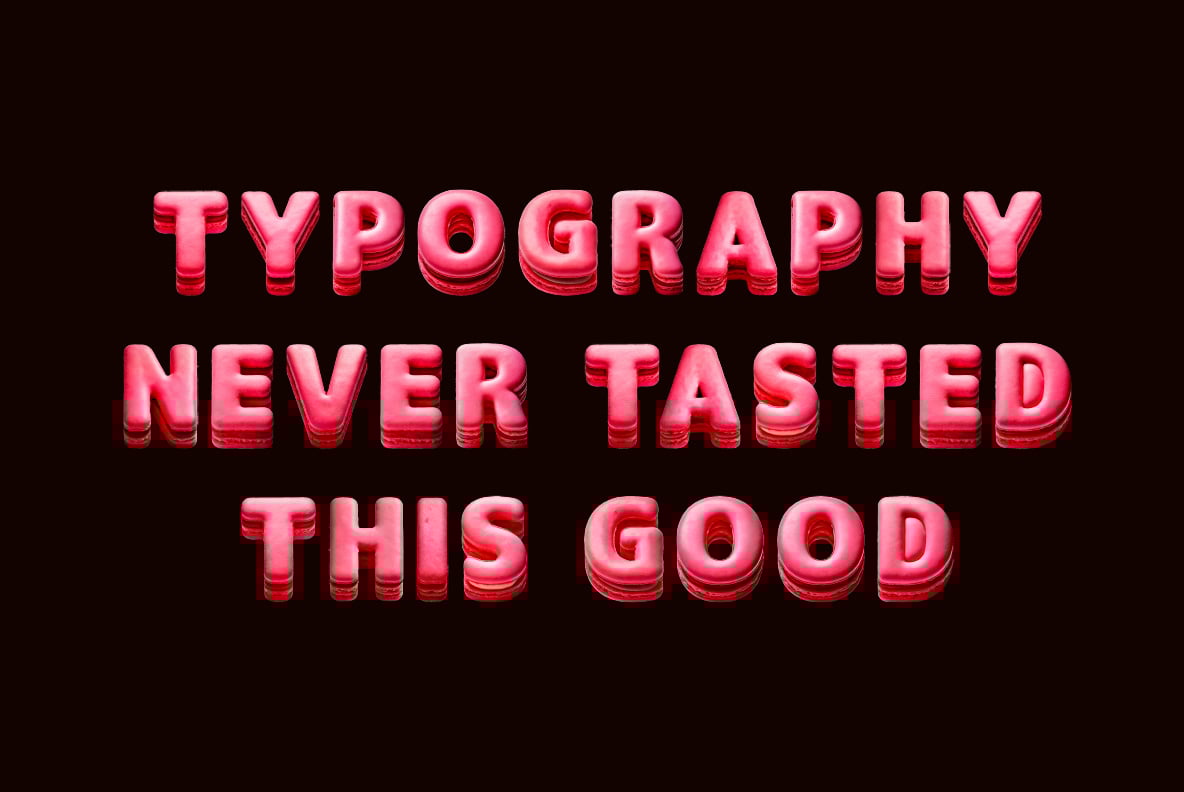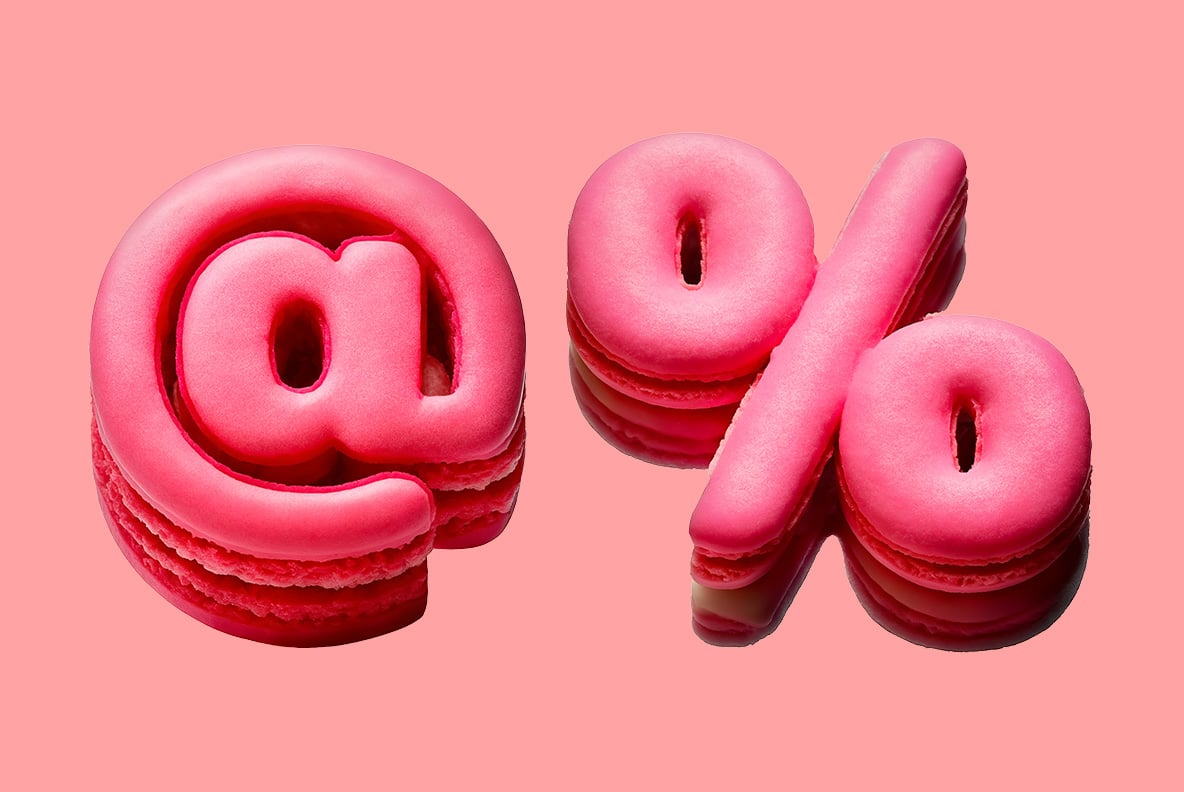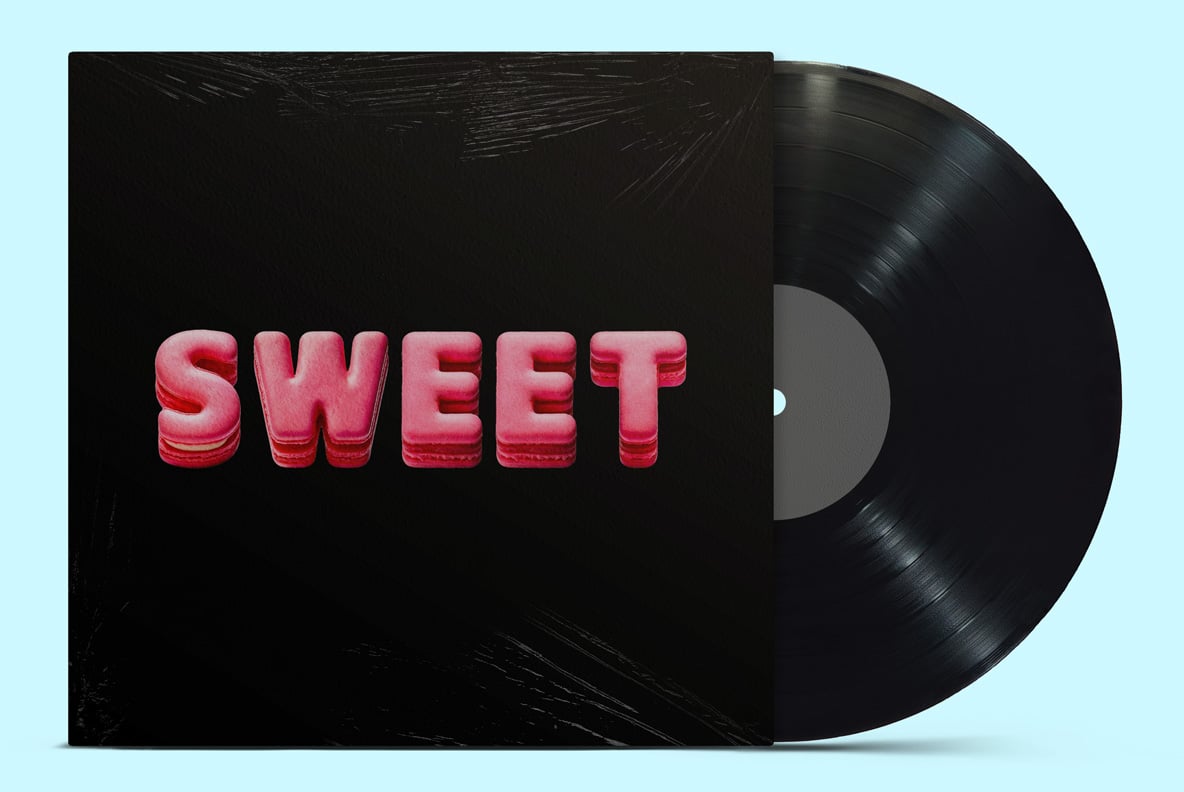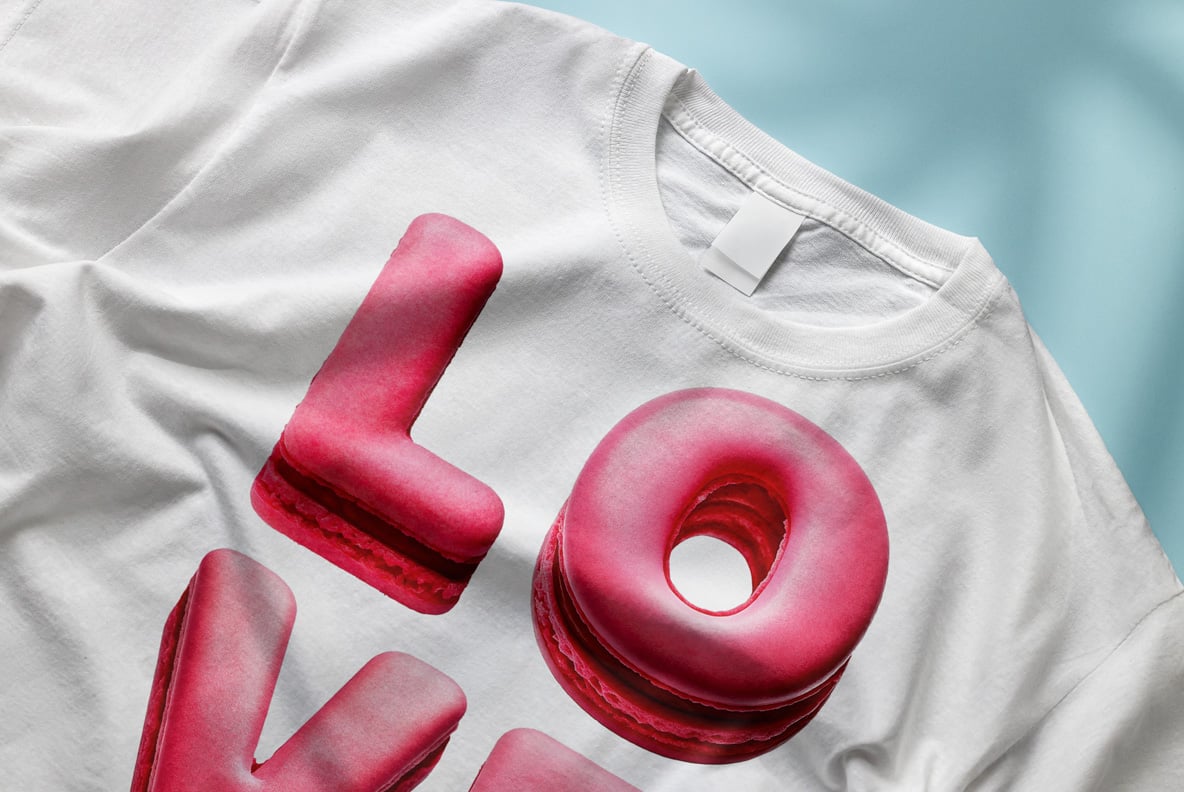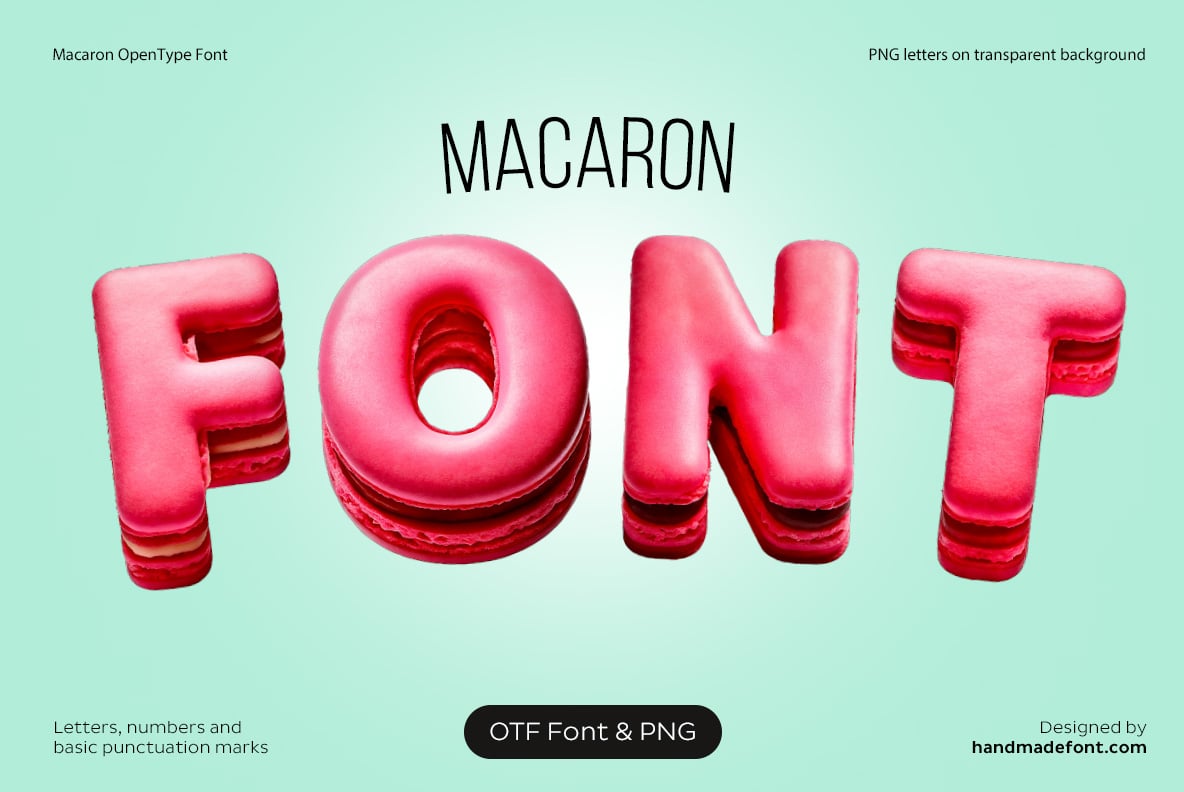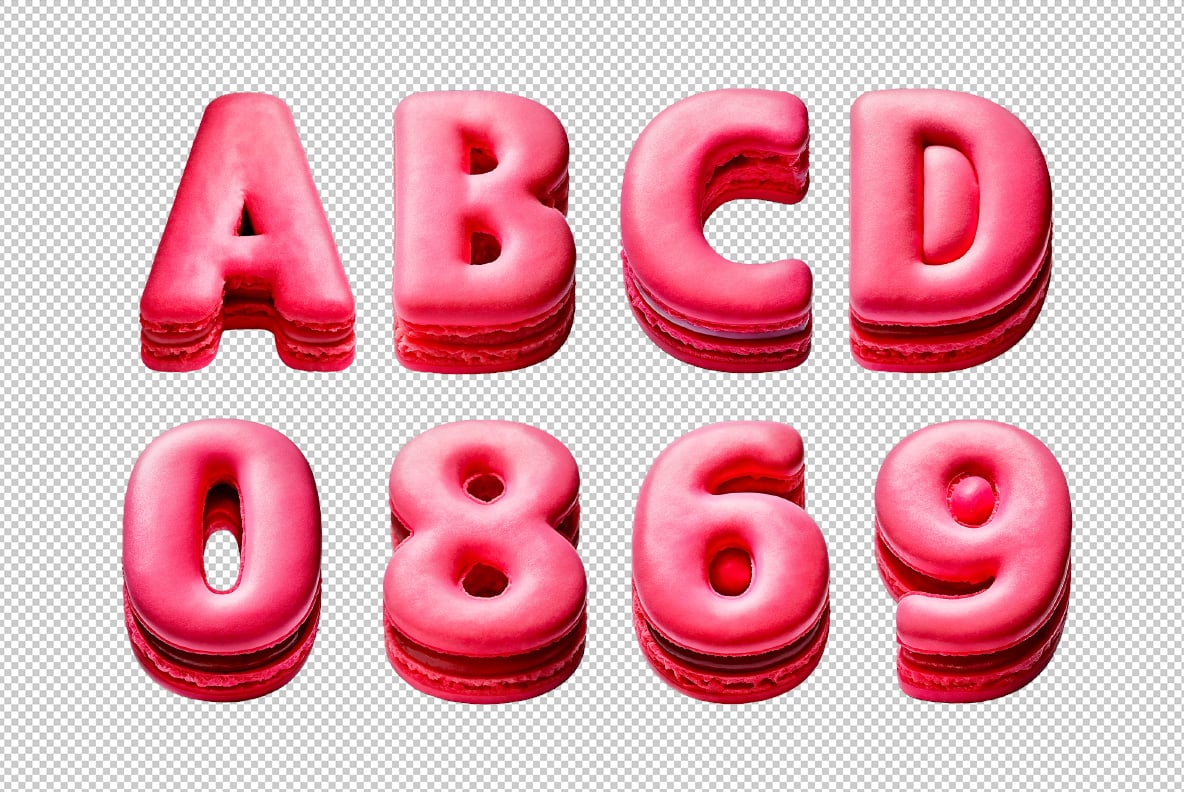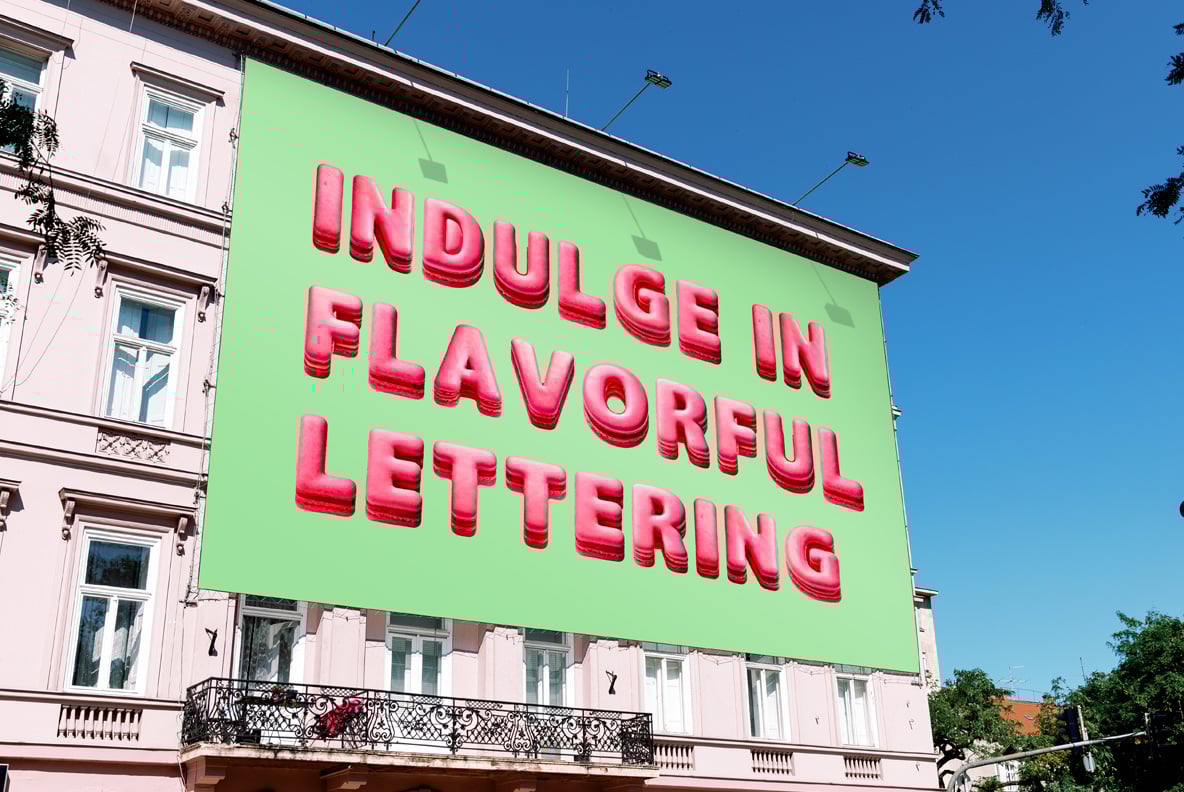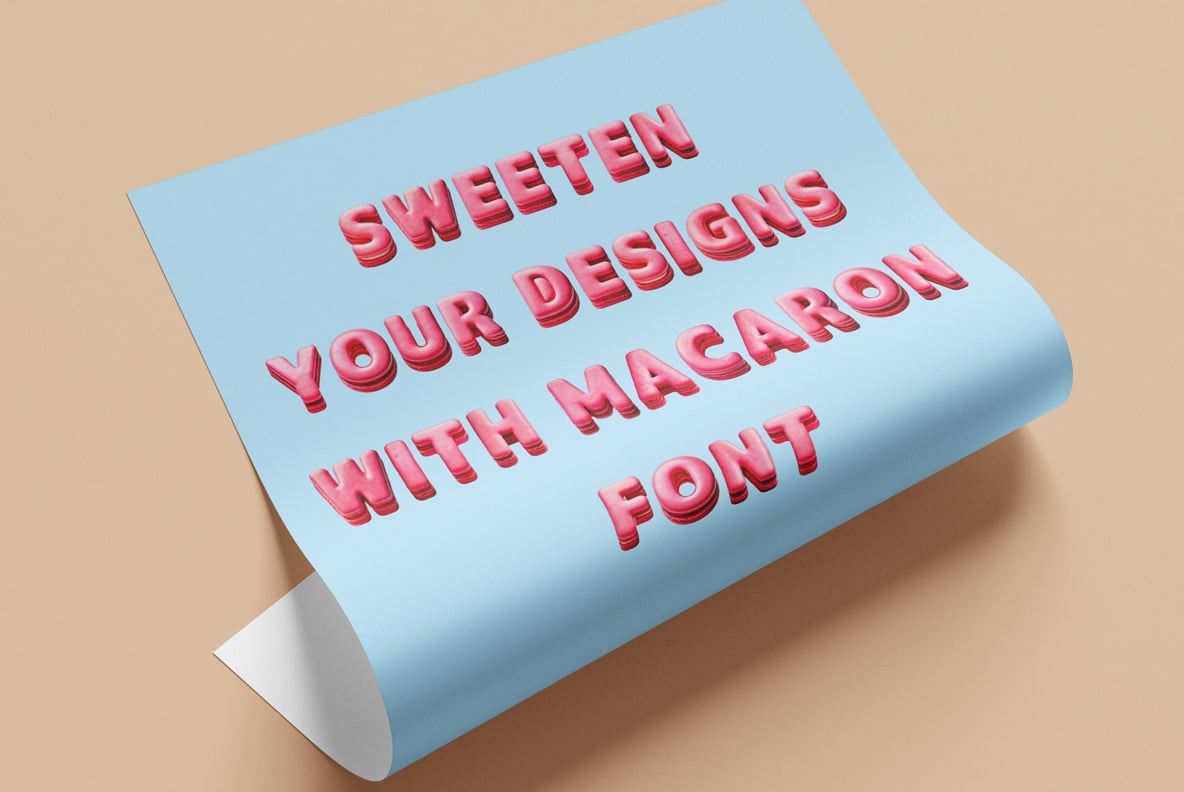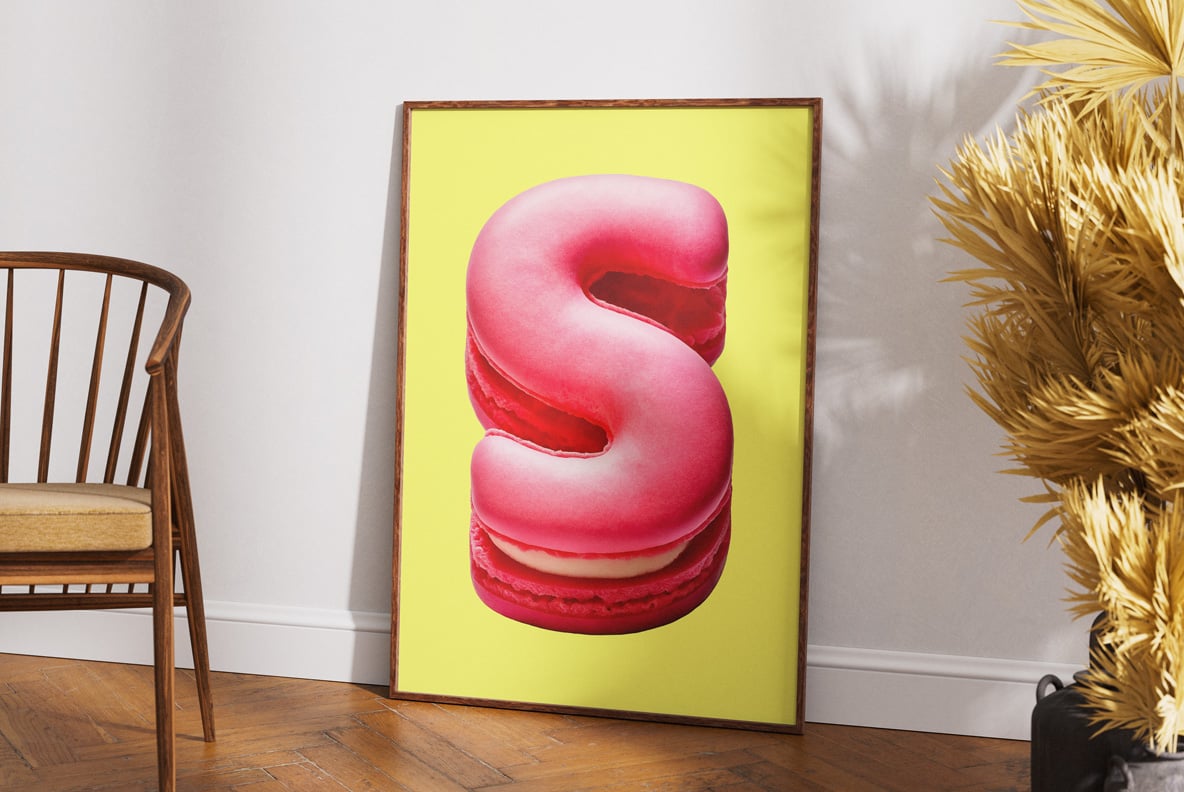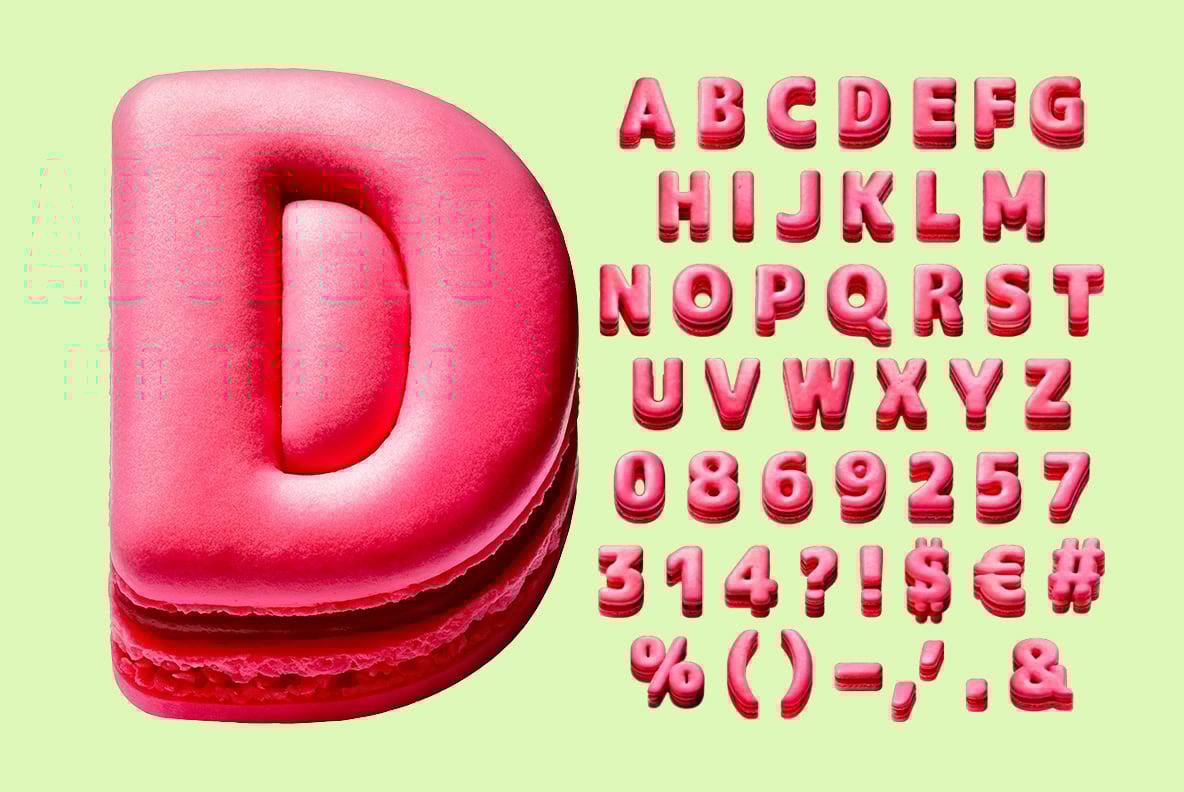
Macaron Font
Indulge in the sweetness of *Macaron Font*, where each letter is crafted from delicate pink macarons! Perfect for adding a playful, patisserie-inspired touch to your designs, this font brings the charm of French desserts to life. Whether you’re creating for a bakery, a dessert-themed project, or just love the whimsy of macarons, this alphabet will satisfy your creative cravings. Sweet, stylish, and irresistibly fun, *Macaron Font* is your recipe for delightful design.